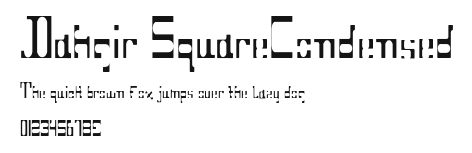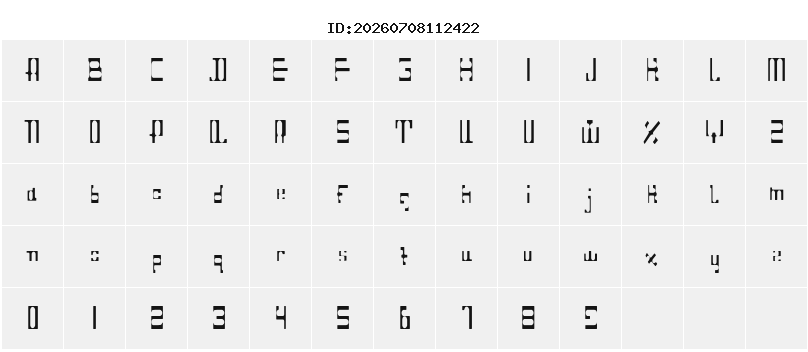
• Font Name: Dahgir SquareCondensed
About Dahgir SquareCondensed.otf
Dahgir SquareCondensed.otf is a modern, elegant sans-serif font designed for ultimate readability and visual harmony. Perfect for branding, headlines, web design, and print materials.